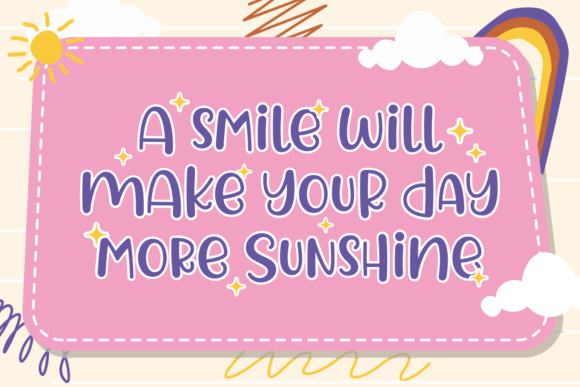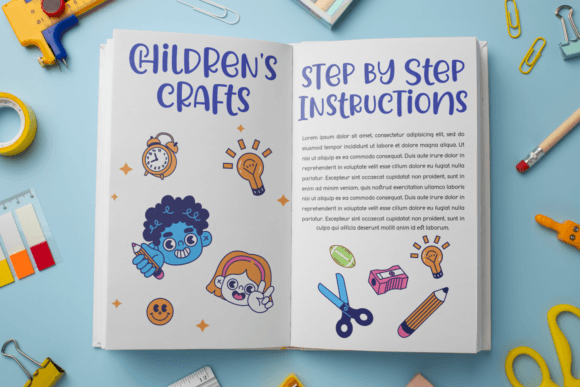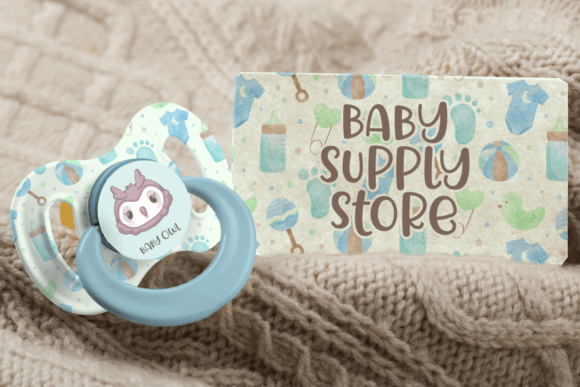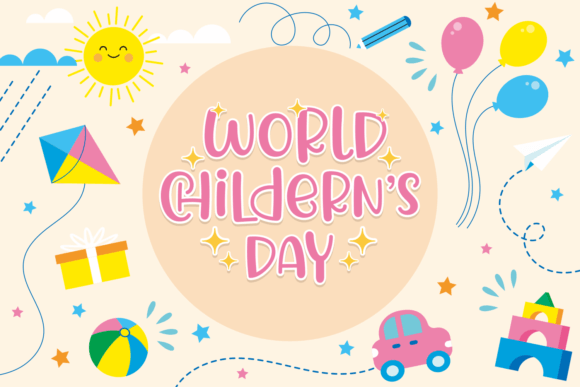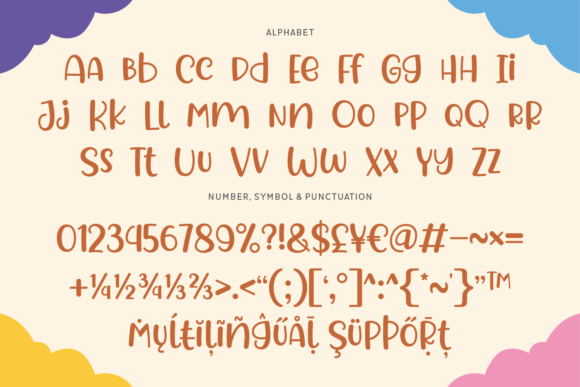
Introduction to Laurent Childish Font
Laurent Childish is a playful, vintage script font that is perfect for adding a touch of nostalgia to your designs.
With its bouncy, free-flowing curves, it lends a warm and inviting feel to any project Whether youโ€™re looking for a retro logo, a vintage flyer, or just a bit of whimsy, this font is sure to bring your design to life.